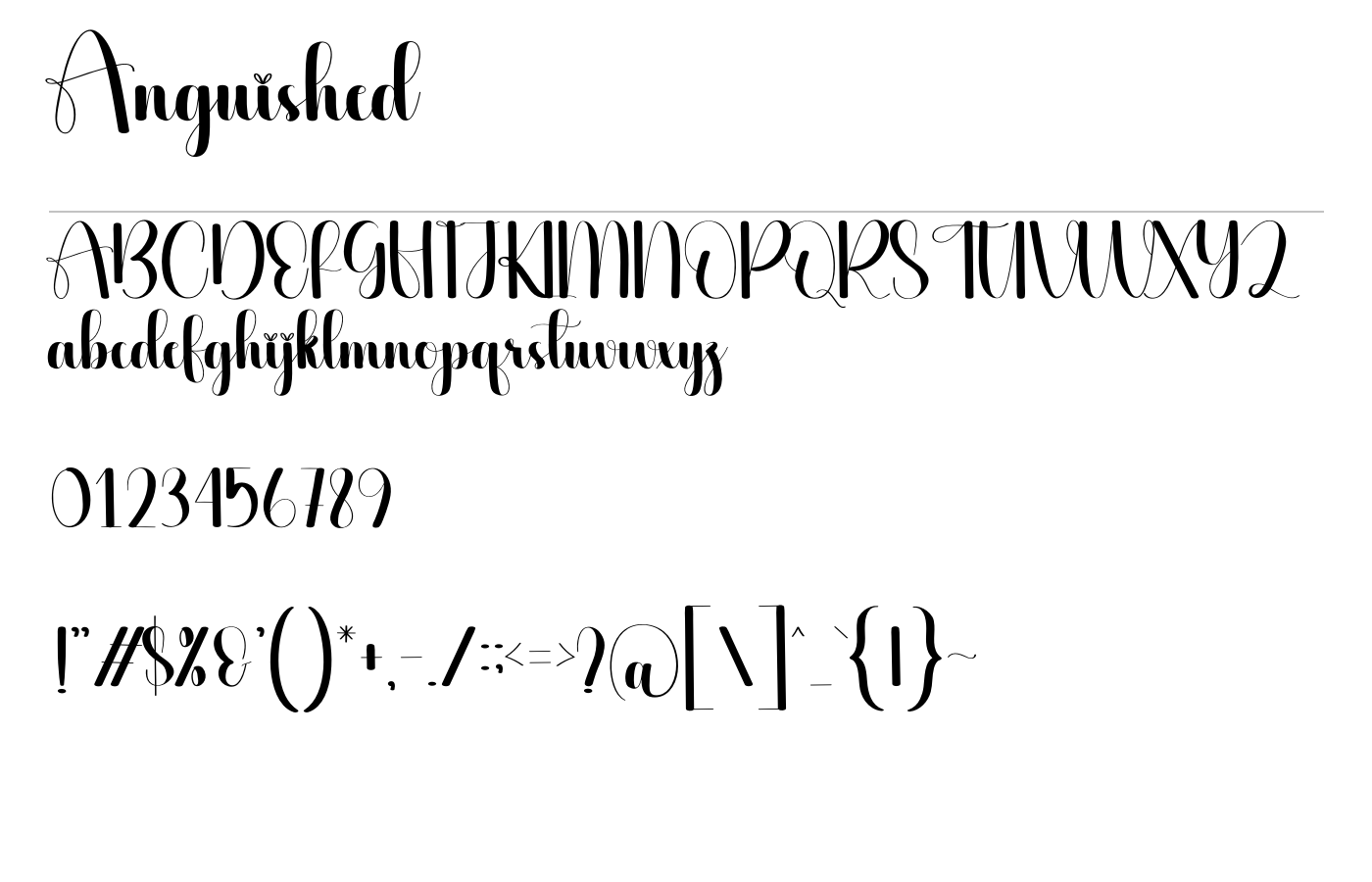
Anguished is a stylish script font with a high-contrast, hand-lettered feel that combines thick, elegant strokes with delicate, swirling flourishes. Its flowing uppercase and lowercase letters create a playful yet sophisticated vibe, making it ideal for invitations, branding, and decorative headlines where a touch of charm and creativity is desired. This font works beautifully for fashion, wedding, and creative projects that want to evoke a sense of elegance and personality.
Anguished Font
About Anguished Font